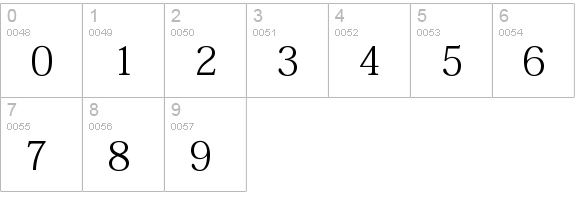
Ryo Text PlusN R Font Details
Ryo Text PlusN R is a modern and versatile font that combines elegance with readability. Its sleek design and clean lines make it perfect for a wide range of design projects, from branding to editorial layouts. The font features a unique twist on traditional serif typefaces, giving it a contemporary edge that stands out from the crowd. What sets Ryo Text PlusN R apart is not only its stylish aesthetics but also its accessibility - it is available for free download at FontsMarket.com. This means that designers and creatives can easily access this high-quality font without any cost, making it a valuable addition to any font library. Whether you're working on a professional project or a personal design, Ryo Text PlusN R offers the perfect balance of style and functionality. With its timeless appeal and modern flair, this font is sure to elevate your designs and bring them to the next level. Download Ryo Text PlusN R today and see the difference it can make in your creative endeavors.